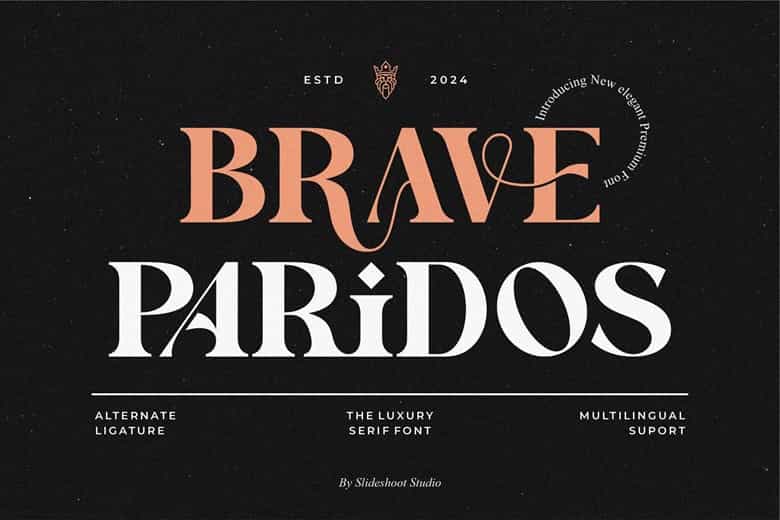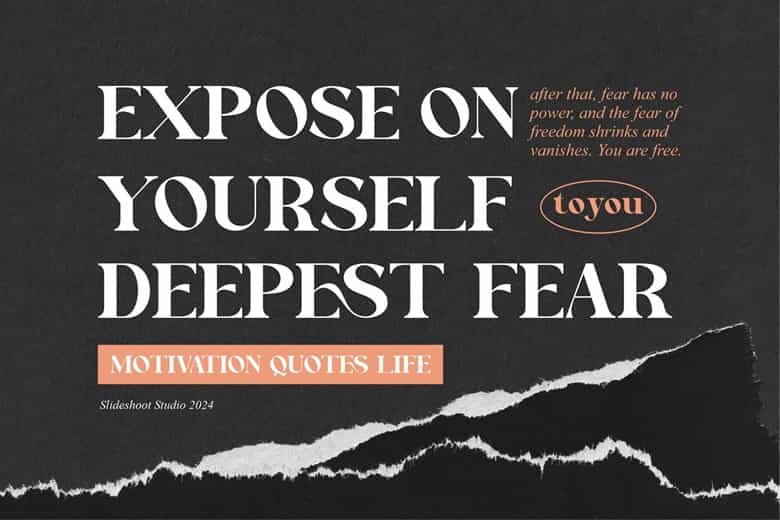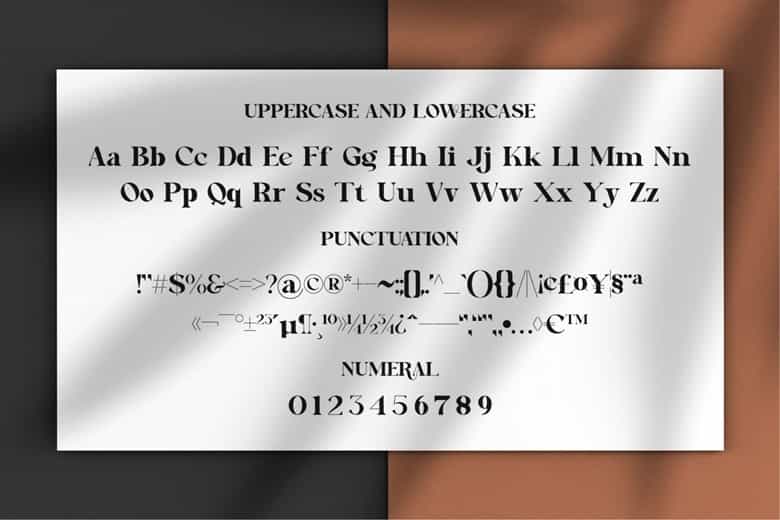
Brave Paridos is a serif typeface, the design of which reflects luxury. This font is catchy and decorative, thus it is appropriate to use it in any design. This font is suitable for use together with invitation cards, logos for companies, movie titles, business cards, book titles, brand names and other similar designs.